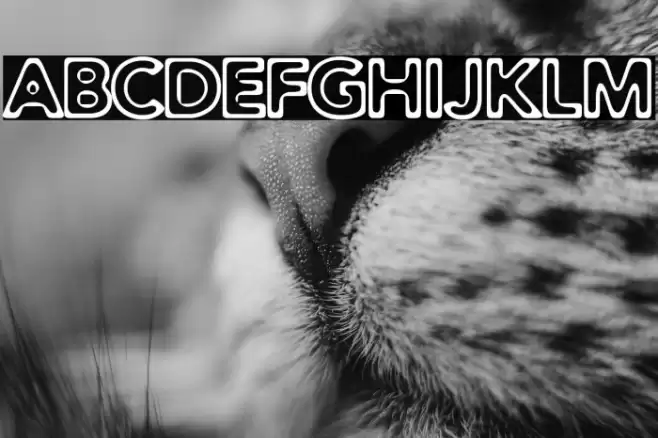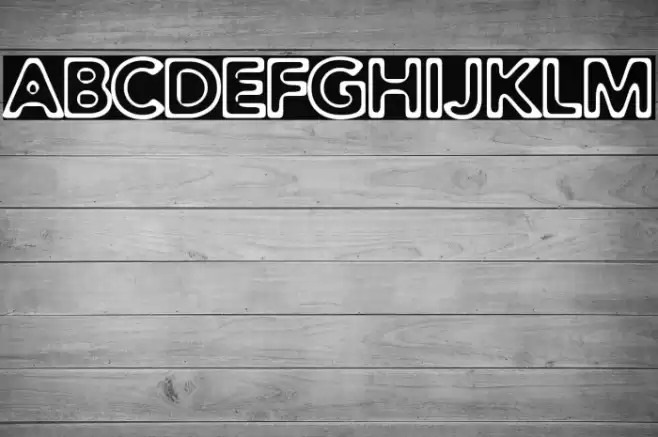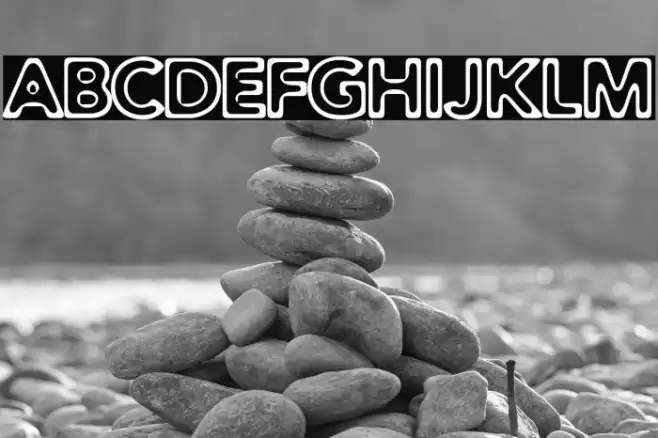
Distro Toast Font
Distro Toast Description
This font features a bold, outlined style that gives it a playful and modern appearance. The characters are rounded and have a consistent thickness throughout, creating a cohesive look. The uppercase and lowercase letters maintain a uniform design, while the numbers and special characters complement the overall aesthetic. The font's outline effect adds depth and dimension, making it stand out in various design contexts. Its clean lines and geometric shapes make it versatile for both digital and print media. The font's unique style is perfect for projects that require a touch of creativity and fun.
A bold, outlined font with rounded, consistent characters for a modern, playful look from Uncategorized fonts.
- Font: Distro Toast